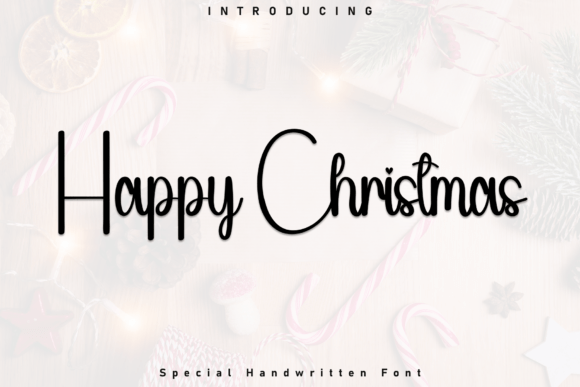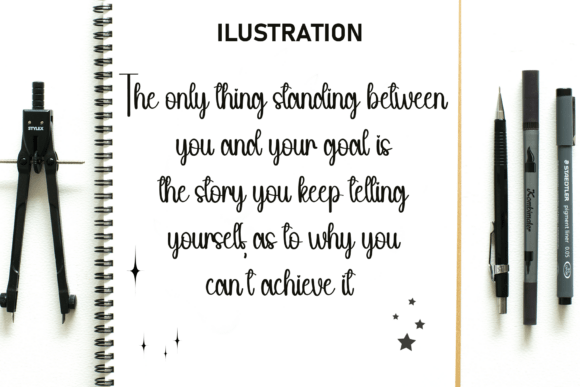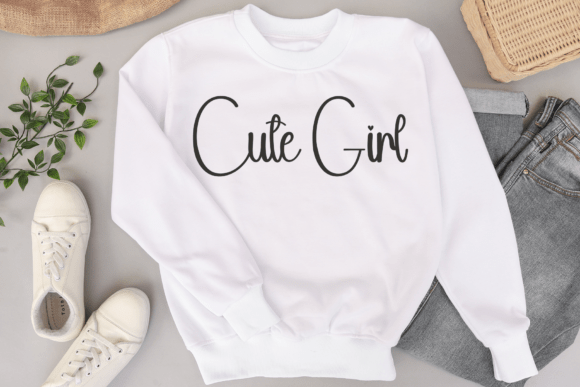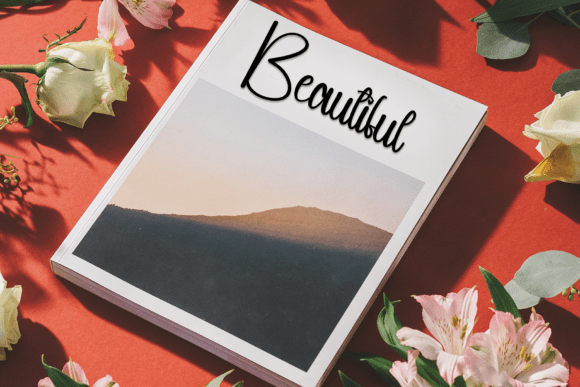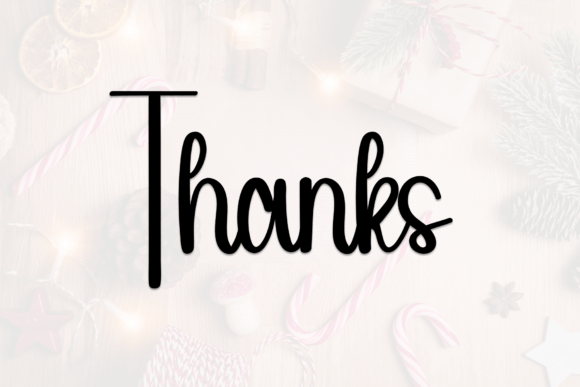
Deck the Halls with Style: Introducing the Happy Christmas Font
As the holiday season approaches, designers are scrambling to create festive and unique designs that capture the essence of Christmas magic. You’ve spent hours pouring over design inspiration boards, brainstorming ideas, and experimenting with different fonts – and then, it hits you: the perfect font to elevate your holiday designs.
Enter the Happy Christmas Font, a stylish script font that embodies the spirit of creativity and modern elegance. With its flowing strokes, graceful curves, and expressive letterforms, this font is perfect for adding an artistic touch to your designs. Whether you’re creating logos, invitations, packaging, or social media graphics, the Happy Christmas Font is sure to bring a smile to your clients’ faces and a touch of sophistication to your designs.
As a designer, you know the importance of versatility and visual charm in a font. The Happy Christmas Font delivers on both fronts, making it a valuable addition to your design toolkit. So why settle for a generic font when you can make a statement with the Happy Christmas Font?
Key Features of Happy Christmas Font
- Unique Characteristics: The font features a playful and festive design, with intricate details and ornaments that evoke a sense of joy and celebration
- Style Options: The font comes in various styles, including bold, italic, and regular, allowing designers to create a range of visual effects and moods
Happy Christmas Font Review
As a designer, I was excited to try out the Happy Christmas Font for my holiday-themed project. Overall, I think it’s a cute and playful font that captures the festive spirit. Here are some things that work well:
- ✨ The font is very festive and perfect for Christmas-related projects.
- ✨ The characters are well-designed and easy to read.
- ✨ It’s available in various weights, making it easy to customize for different design needs.
- ⚠️ The font may not be suitable for more formal or professional designs, as it’s quite playful and informal.
- ⚠️ Some of the characters may not be available in all languages, which could be a limitation for international designs.
- ⚠️ The font may not be as versatile as some other fonts, making it less suitable for projects that require a lot of customization.
Overall, I think the Happy Christmas Font is a great choice for holiday-themed projects, but it may not be the best option for more formal or complex designs. With some limitations in mind, I’d still recommend it for its playful and festive spirit.
The Happy Christmas Font is perfect for:
- Creating festive holiday cards and invitations.
- Designing holiday-themed social media graphics.
- Adding a touch of festive cheer to presentations and documents.